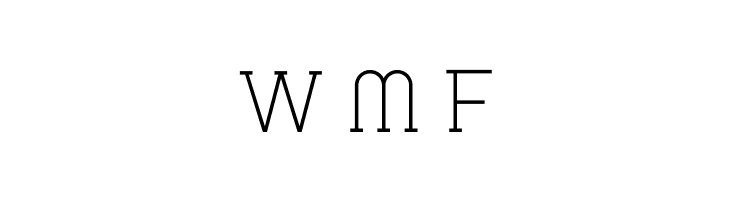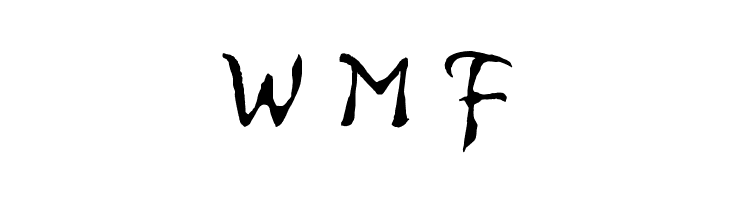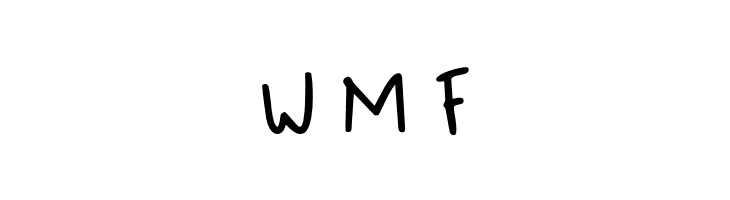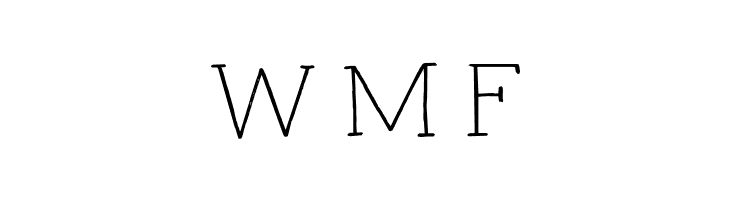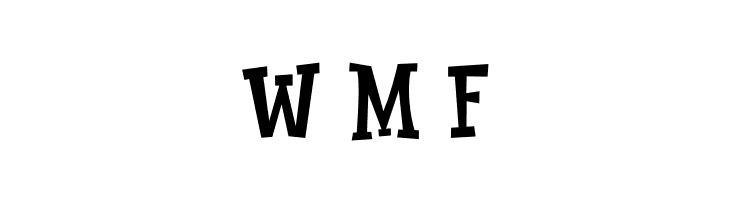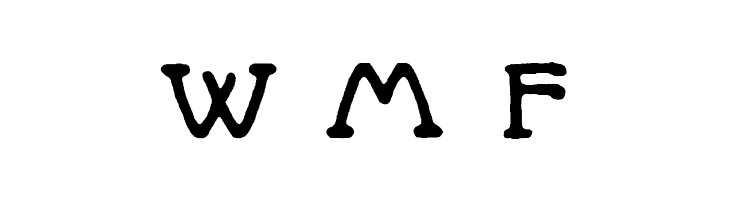
( Alexander Tiunov - creativemarket.com/Besttypeco )
A dynamic, handwritten-style font with fluid and expressive characters.
( Amanda Fox )
A playful, hand-drawn font with a whimsical and informal style.
( Antipixel - Julia Martínez Diana - www.antipixel.com.ar/ )
( Asif Mohammed )
A playful and whimsical font with rounded, smooth letterforms and a hand-drawn feel.
( Atjcloth Studio - Hanif Syahputra - creativemarket.com/Atjcloth?u=Atjcloth )
A bold, dynamic handwritten font with playful, irregular strokes.
( Awan Studio - creativemarket.com/Awan_S )
A playful, handwritten font with an artistic and dynamic style.
( BessAsher Rebel - Bess Rebel )
A playful, casual handwritten font with uneven strokes and a whimsical touch.
( Brixdee - jack-oatley.com/ )
A playful, handwritten-style font with a chalk-like texture.
( Carolina Valtuille - www.carolinavaltuille.com/ )
A playful, handwritten font with rounded, casual letterforms.
( CloutierFontes - Steve Cloutier - www.cloutierfontes.ca/ )
A vintage, typewriter-inspired serif font with bold, irregular strokes.
( Craft Supply Co. - creativemarket.com/craftsupplyco )
A lively, handwritten font with smooth, interconnected strokes and a casual elegance.
( CrazeCo.com.au - Craze™ Co - CrazeCo.com.au )
A textured, shoelace-inspired font with a playful and handcrafted appearance.
( Daniel McShee - www.danielmcshee.co.uk )
A modern serif font with elegant curves and sharp serifs.
( Docallisme HAS Feat Dutsky - docallisme.blogspot.com )
A playful, bold handwritten font with rounded, irregular shapes.
( Fidel Mendoza )
A scratchy, hand-drawn font with a raw, edgy appearance.
( Fontyou - www.fontyou.com )
A hand-drawn, medieval-inspired font with dynamic strokes and organic shapes.
( Fortress Tech - www.youtube.com/channel/UCLyHUw5NcyVCILijN5vebwg )
A playful, casual handwritten font with smooth, rounded edges.
( Fortress Tech - www.youtube.com/channel/UCLyHUw5NcyVCILijN5vebwg )
A bold, playful handwritten font with dynamic and irregular strokes.
( Fábio Fafers - www.fafers.com.br/ )
A classic serif font with unique irregularities, offering a handcrafted feel.
( Genilson L. Santos )
A playful handwritten font with dynamic strokes and a casual, expressive style.
( HENRIavecunK - Henrik )
A modern gothic font with tall, narrow letterforms and a hand-drawn feel.
( Hanoded - David Kerkhoff - www.hanodedfonts.com )
A playful, bold font with irregular, hand-drawn letterforms.
( Hanoded - David Kerkhoff - www.hanodedfonts.com )
A playful, hand-drawn font with a whimsical and friendly style.
( Hanoded - David Kerkhoff - www.hanodedfonts.com )
A playful, hand-drawn font with whimsical characters and unique symbols.
( Hanoded - David Kerkhoff - www.hanodedfonts.com )
A playful, hand-drawn font with a whimsical and informal style.
( Hanoded - David Kerkhoff - www.hanodedfonts.com )
A playful, handwritten font with smooth, rounded strokes and a casual style.
( Hanoded - David Kerkhoff - www.hanodedfonts.com )
A whimsical, fairy-tale inspired font with decorative, magical elements.
( Hanoded - David Kerkhoff - www.hanodedfonts.com )
A whimsical, hand-drawn font with playful pineapple motifs.
( Hanoded - David Kerkhoff - www.hanodedfonts.com )
A playful, whimsical font with bold, irregular strokes and a lively appearance.
( Hanoded - David Kerkhoff - www.hanodedfonts.com )
A playful, hand-drawn font with a whimsical and artistic style.
( Harried Type - H.G. Blakeman - harriedtype.com )
A playful, hand-drawn font with a pixelated texture and whimsical style.
( Harried Type - H.G. Blakeman - harriedtype.com )
A playful, handwritten font with a casual and whimsical style.
( Ignacio Yunis - pastruki.blogspot.com/ )
A playful, hand-drawn style font with whimsical and organic characters.
( Jonathan S. Harris - www.tattoowoo.com )
A playful, handwritten-style font with irregular strokes and spacing.